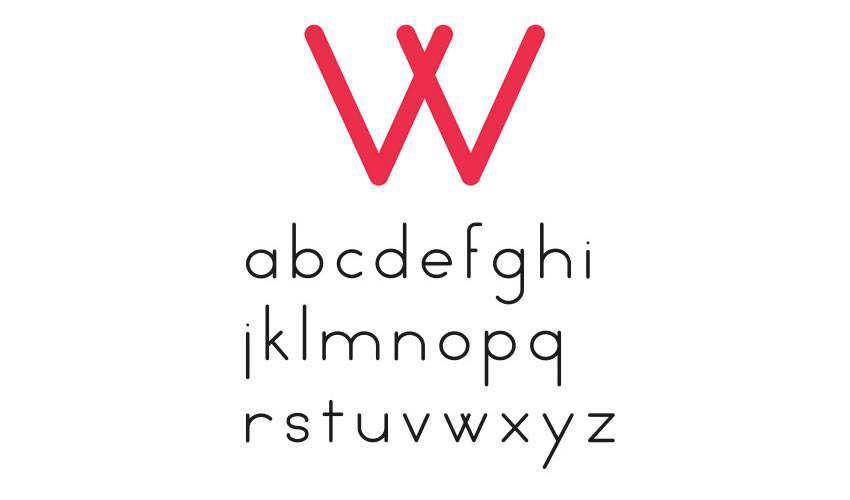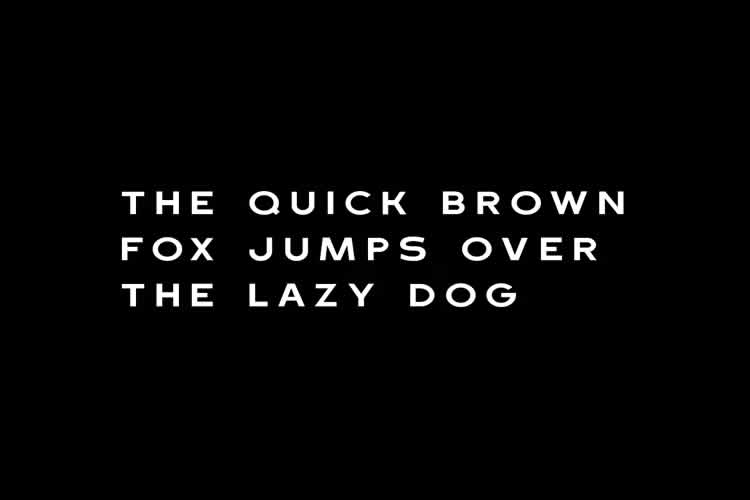
25+ Free Minimal Fonts for Modern Design — Speckyboy
While many beautiful and ornate fonts are available, sometimes a simple, minimalistic font is the best choice for creating clean, modern, and sophisticated designs.
Minimal fonts are known for their simplicity and lack of embellishment. Their high legibility makes them an excellent choice for presenting information clearly and efficiently.
So, whether you’re designing a website, mobile app UI, brochure, or logo, these minimalistic fonts are perfect for adding a touch of subtle sophistication to your work.
The Enrique font is a rounded, sans-serif font in three different weights. It’s an excellent choice for modern logo and branding projects. It includes several multilingual characters and a complete set of numerals.
If you’re looking for a high-quality minimal slab font, give Virtuous Slab a try. The font includes four weights and can be used in both commercial and personal projects.
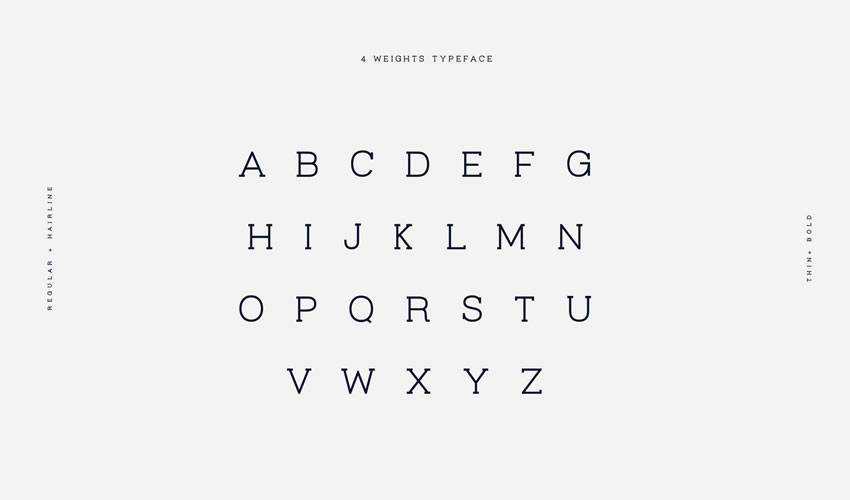
The Giraffey font is a tall and condensed typeface that’s perfect for fashion or beauty branding. It would be perfect for logo design, headings, and posters.
Dublin Minimal features clean lines and sharp edges, making it an excellent choice for minimalist designs that need a bold font.
This monospaced font offers a clean, sharp design ideal for minimalistic projects. It is available in regular, bold, and black variants and is perfect for designers wanting simplicity and style in their work.
Bergen Text is a highly legible typeface designed for readability, particularly on small text sizes. The font includes six different weights.
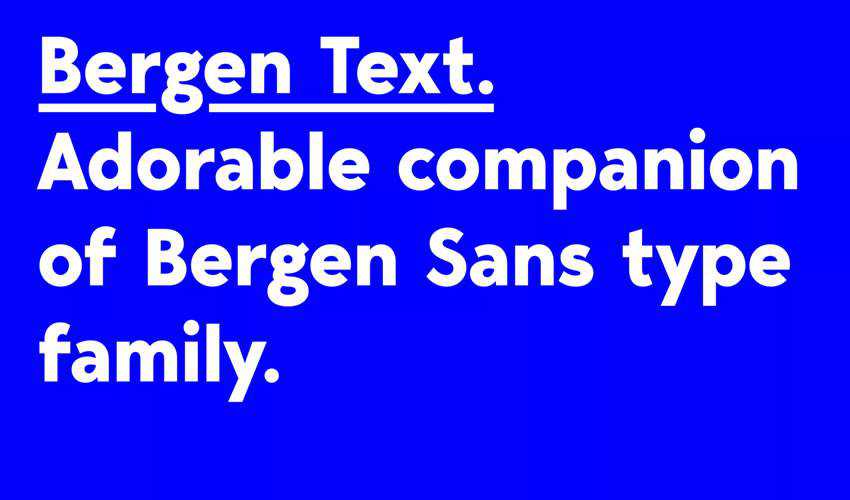
Gidole is an open-source font with a modern and elegant design. It would be a great choice for logos, posters, and any other type of branding project. The font can be used for commercial and personal projects.
This font trio, which comes in three different styles, is perfect for any branding and design project involving restaurants, bakeries, or any other type of food industry.
Athena combines classic and modern elements, making it perfect for various design projects in print and digital formats. However, you only get the regular style for free.
Bolt Sans is a minimal and simple sans-serif font that will improve the readability of your designs. The typeface includes desktop and Webfont files.
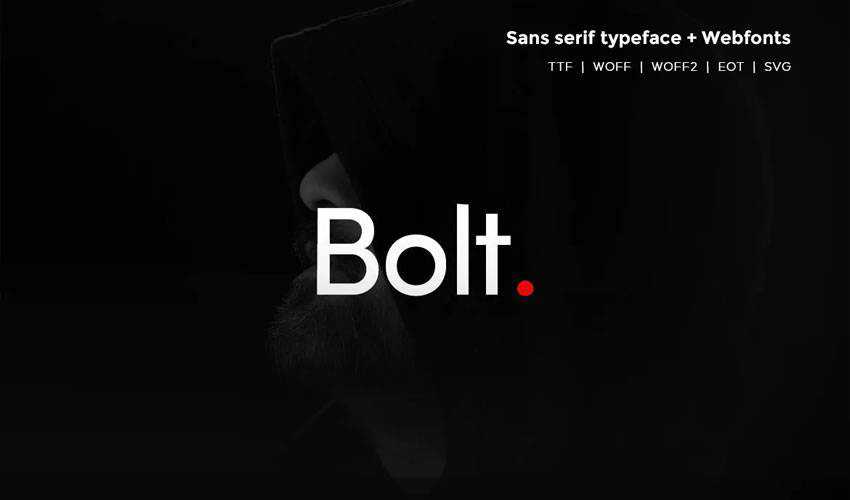
This clean font is highly legible in smaller sizes. The font includes three different weights and a geometric design. All uppercase, lowercase, numerals, most symbols, and glyphs are included.
Latina Essential comes in four different weights and has true italics. It is perfect for branding projects and can also be used for body text on websites. The font can be used in personal and commercial projects.
The Follana font is great for modern, minimal, and experimental designs. It can be used for logo design, posters, and creating large headlines and titles. It’s free for commercial and personal use.
De Valencia is a thin and tall font that would work great for headlines, social media graphics, or posters. It can also be used for fashion or beauty logo designs. The font has great kerning, making it suitable for overlapping text for various graphics.
Seb Neu is a sans-serif font family with a minimalistic aesthetic. It includes twelve different weights, making it an excellent choice for elegant and modern projects.
The Coco font family is a modern take on classic Gothic typefaces. It suits designers who want a blend of timeless and contemporary styles.
Raleway is a popular free font that can be used in almost all types of design projects. The font was designed in a single thin weight and includes old style and lining numerals, standard and discretionary ligatures, a complete set of diacritics, as well as stylistic alternates.
The Finland font is a geometric font that comes in six styles. It’s suitable for designing logos, greeting cards, book titles, posters, branding, stationery, and more. You can freely use it in commercial and personal projects.
The Muller font is a beautiful serif font that can be used for branding, but it’s also suitable for long body text. The font includes 24 styles. However, you can only download the light, thin, and extra bold styles for free.
Uni Neue is a minimal typeface that includes 12 font variations. The light and heavy fonts are free. They are an excellent choice for logo design, posters, and big headlines.
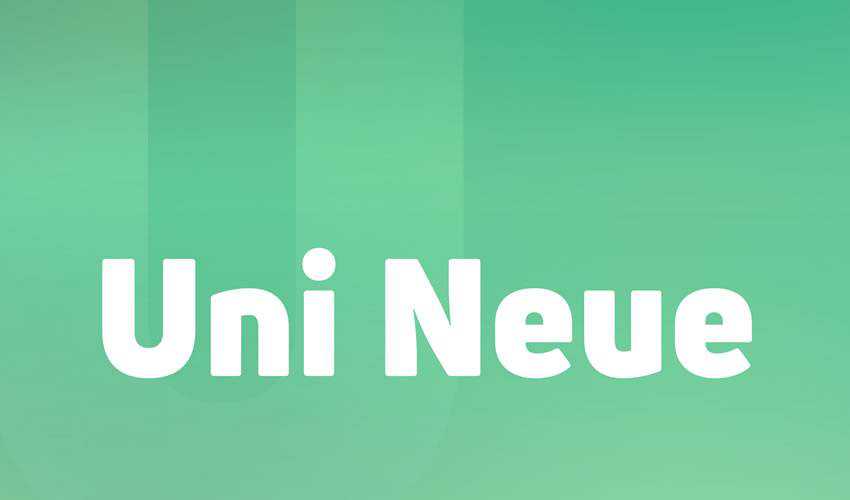
They fit well in designs that are straightforward and not too complicated. Whether you’re making a presentation, a website, or a flyer, a minimal font can help your message stand out without being too loud or busy.
Conclusion
Typography can make or break your design, so choose your fonts carefully. The good news is that you don’t have to break the bank to access quality fonts.